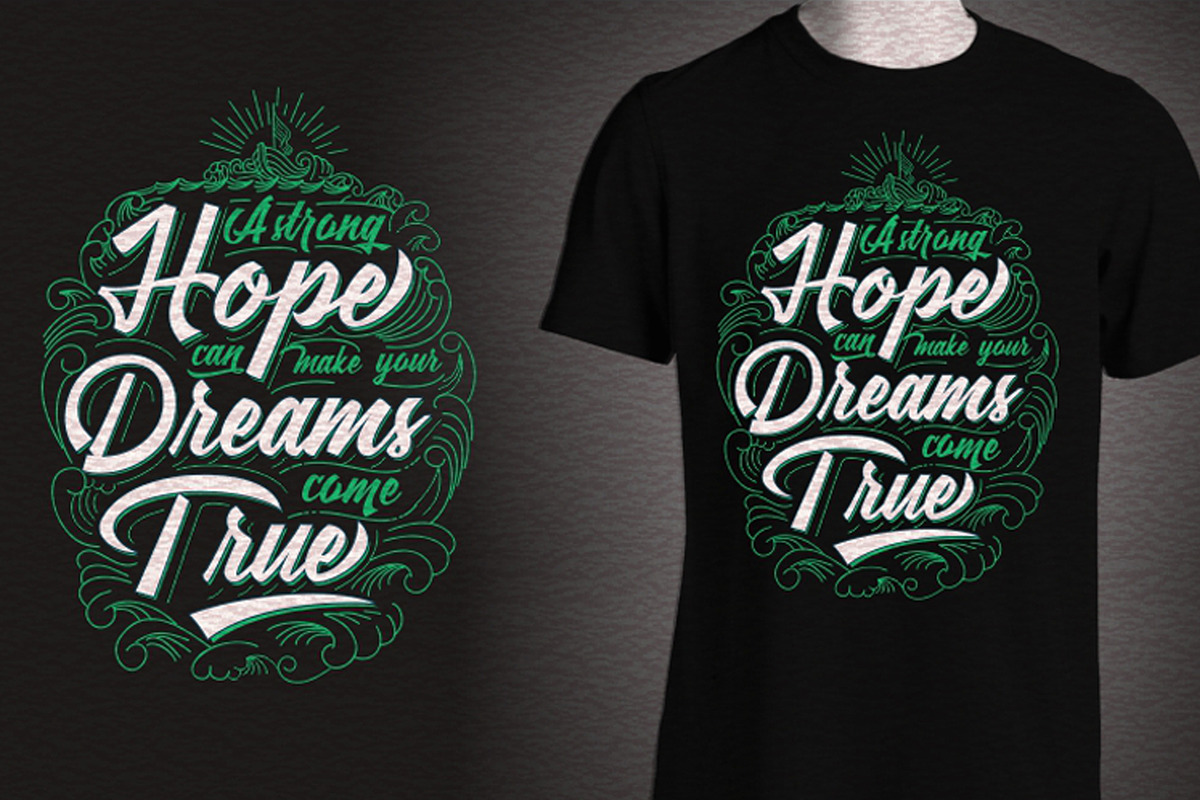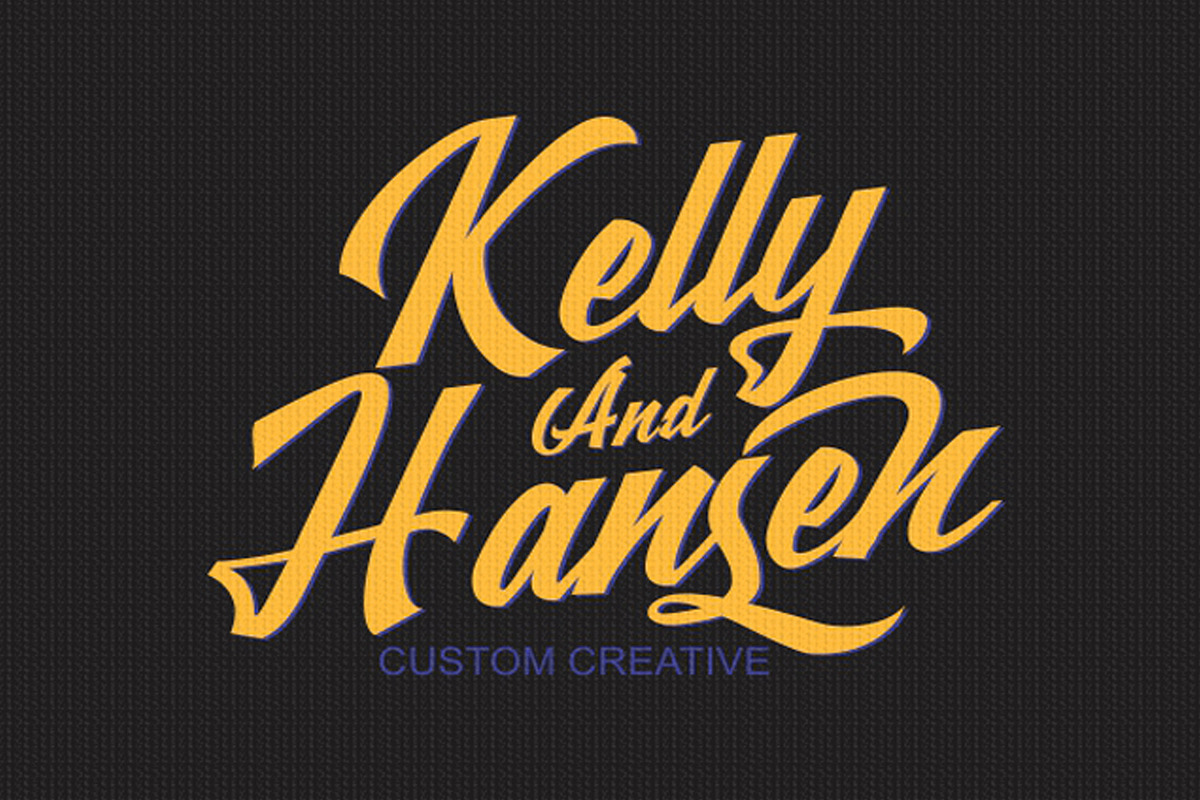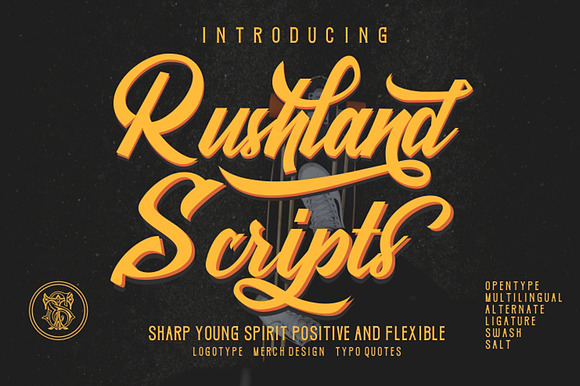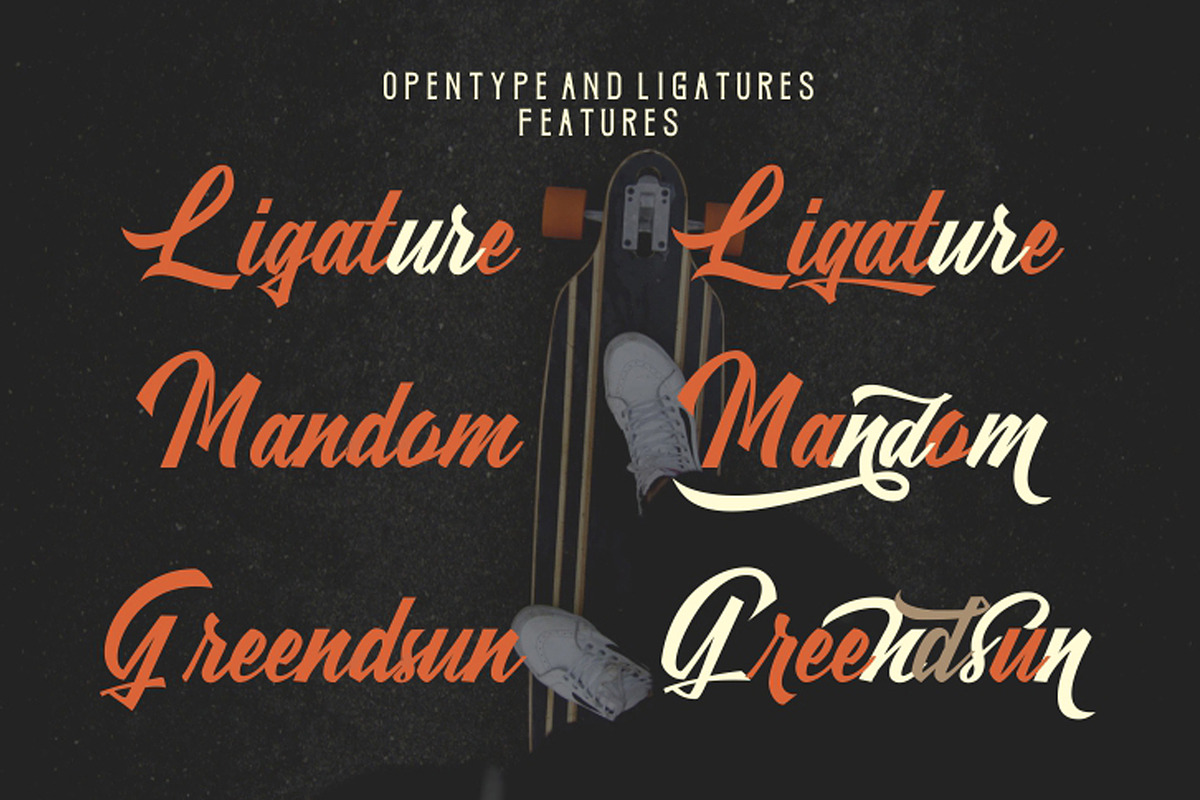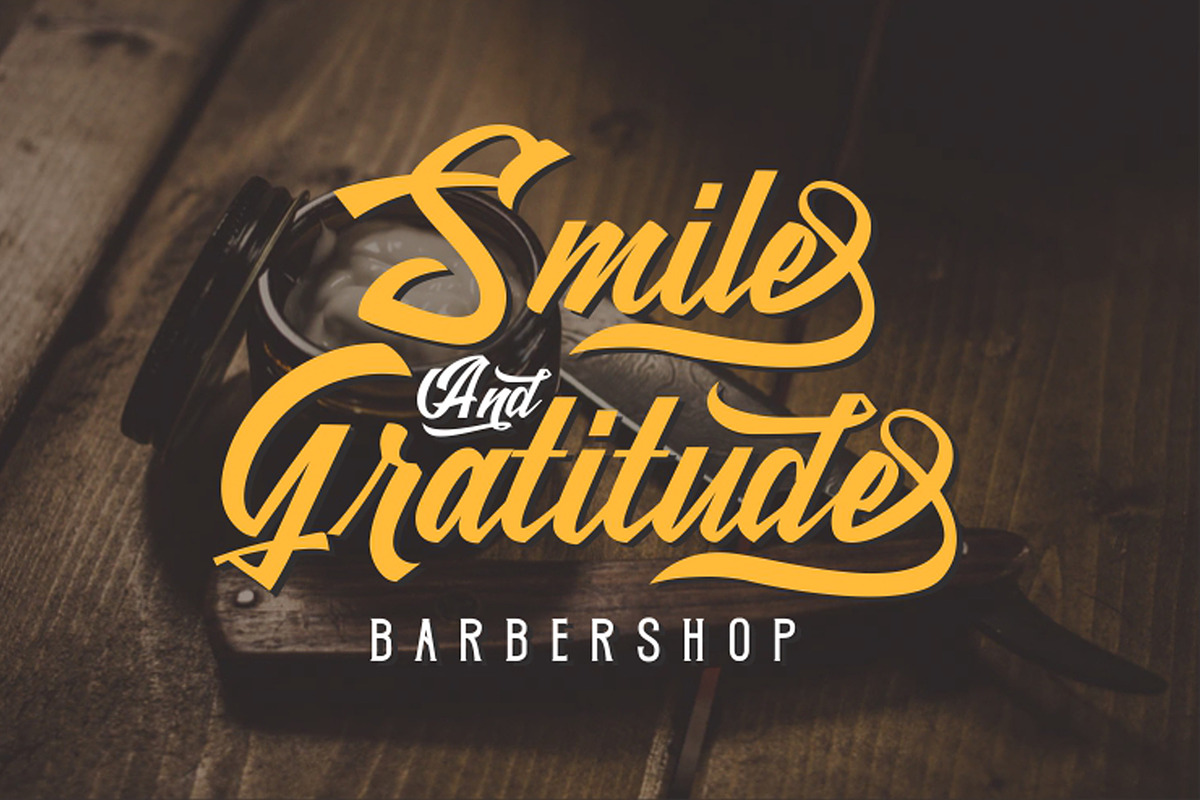
Rushland Script Spirit and Bold FONT
Rushland Script is a font created to bring strong, sharp and flexible young characters with smooth and varied swashes, this font was created for the purpose of being used as.
MERCH DESIGN with feature features in the font you can use to enhance fonts, feature features like:
Rushland Script Spirit and Bold FONT by SHEILLA fits naturally into Branding, posters, packaging, typography.